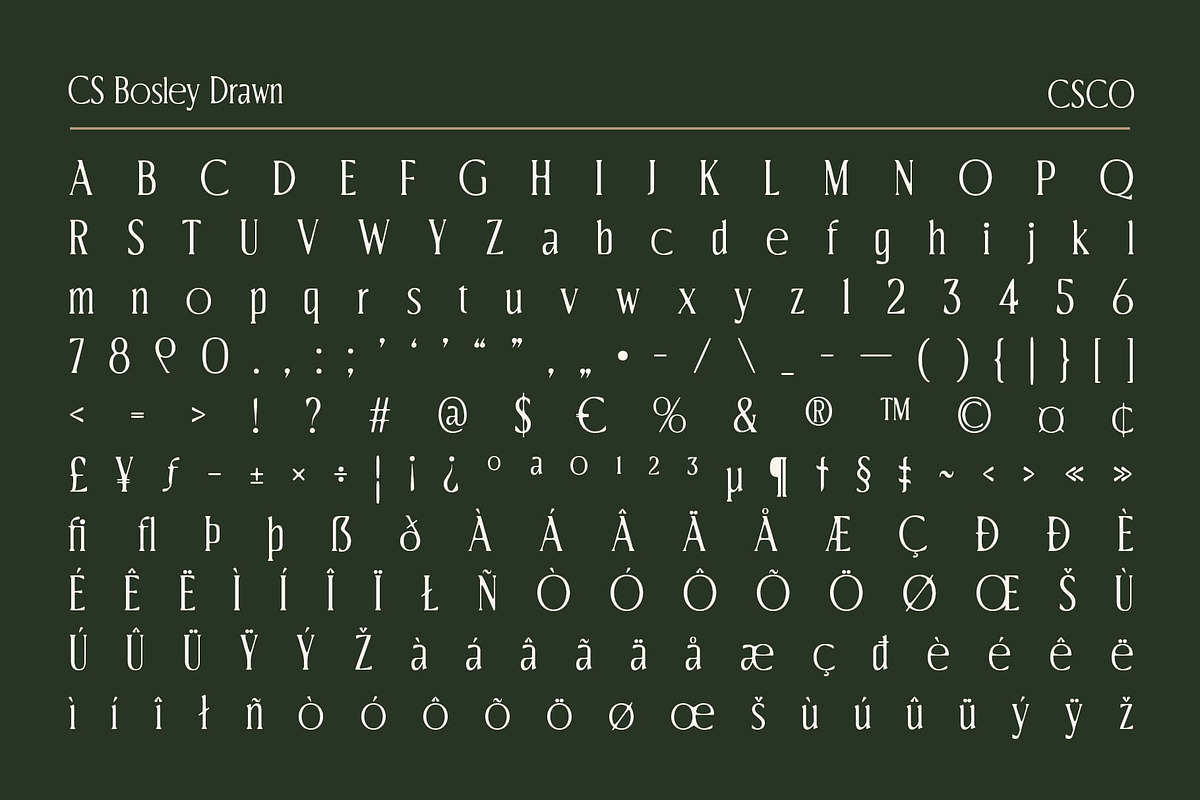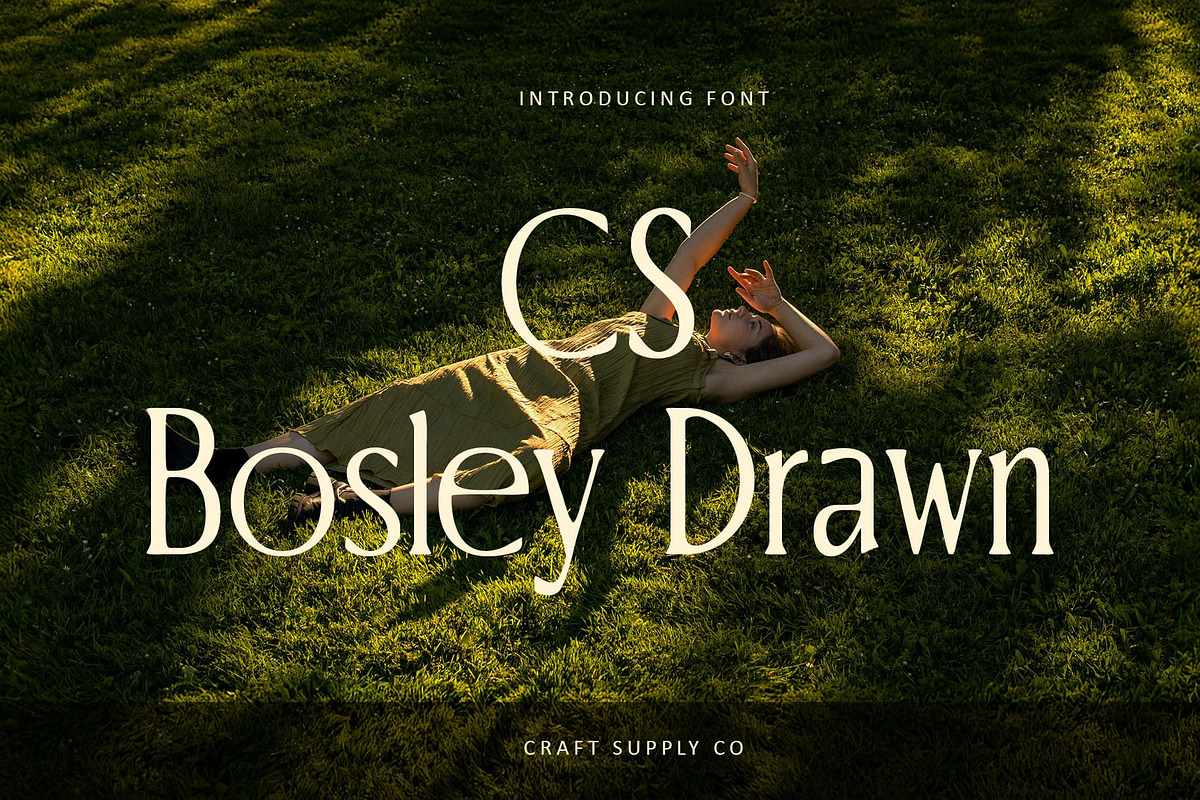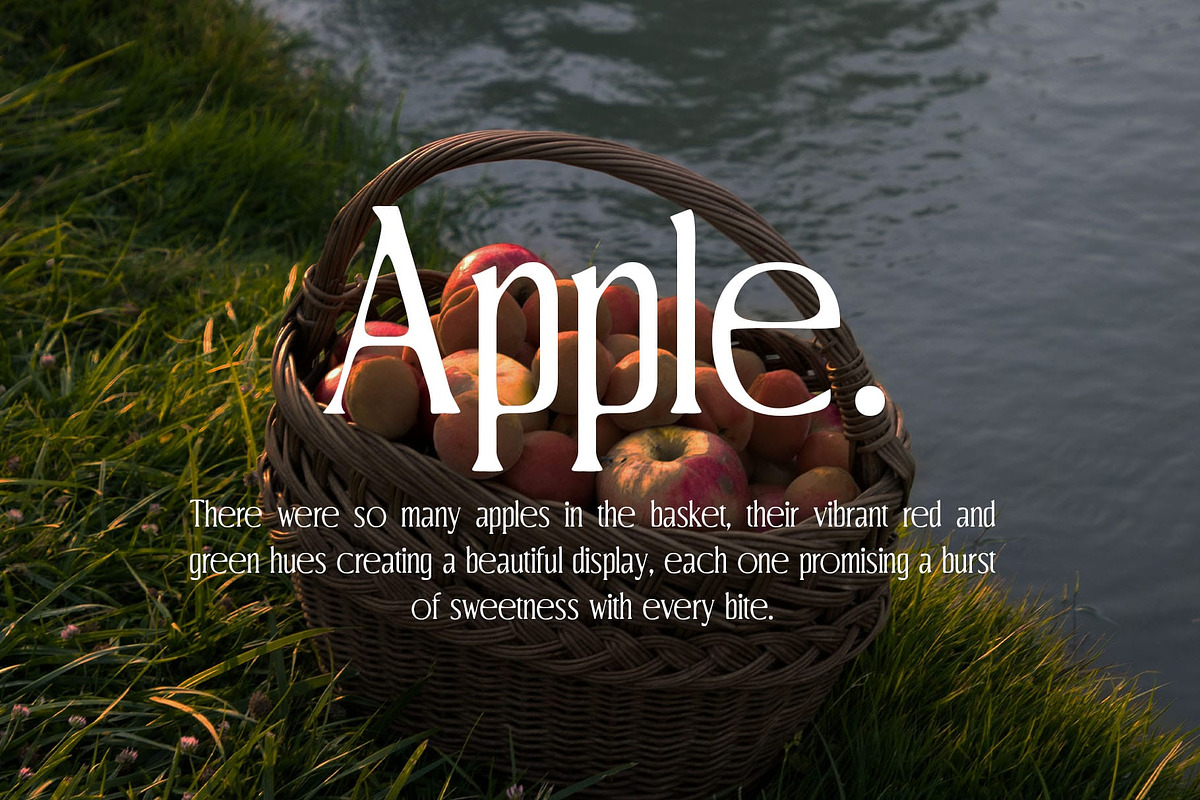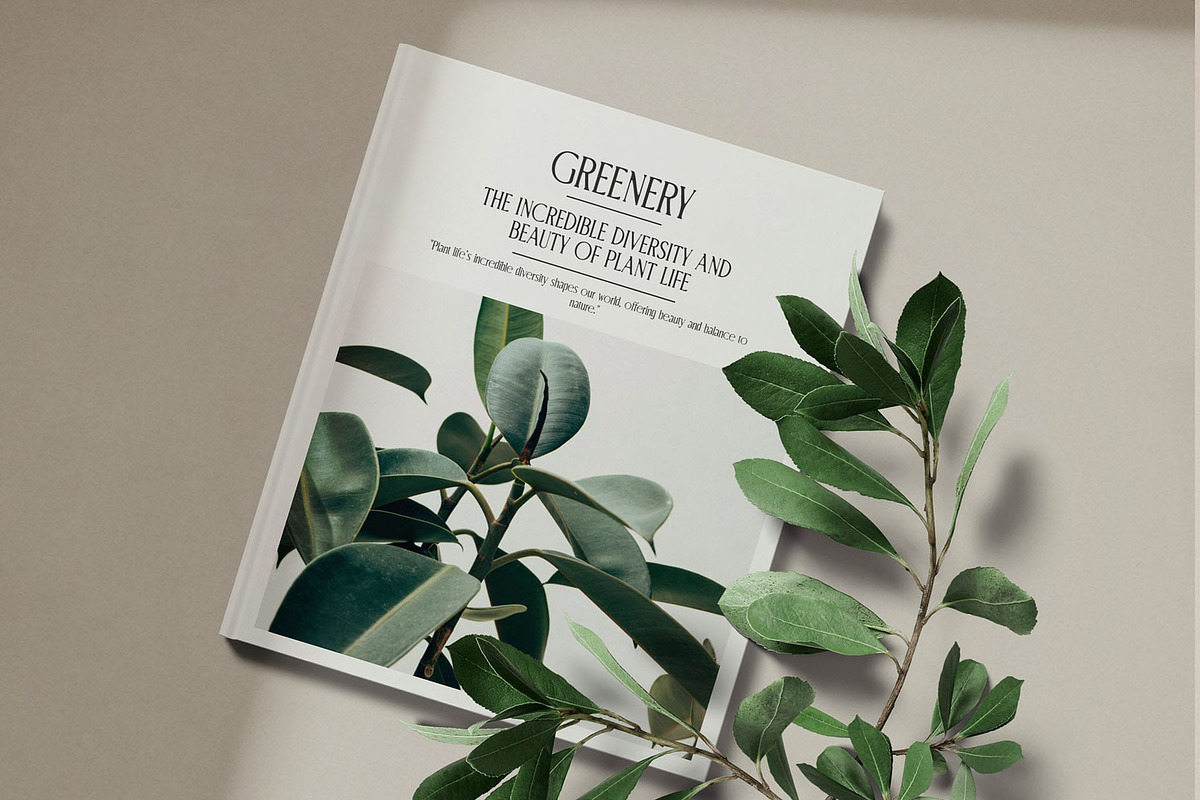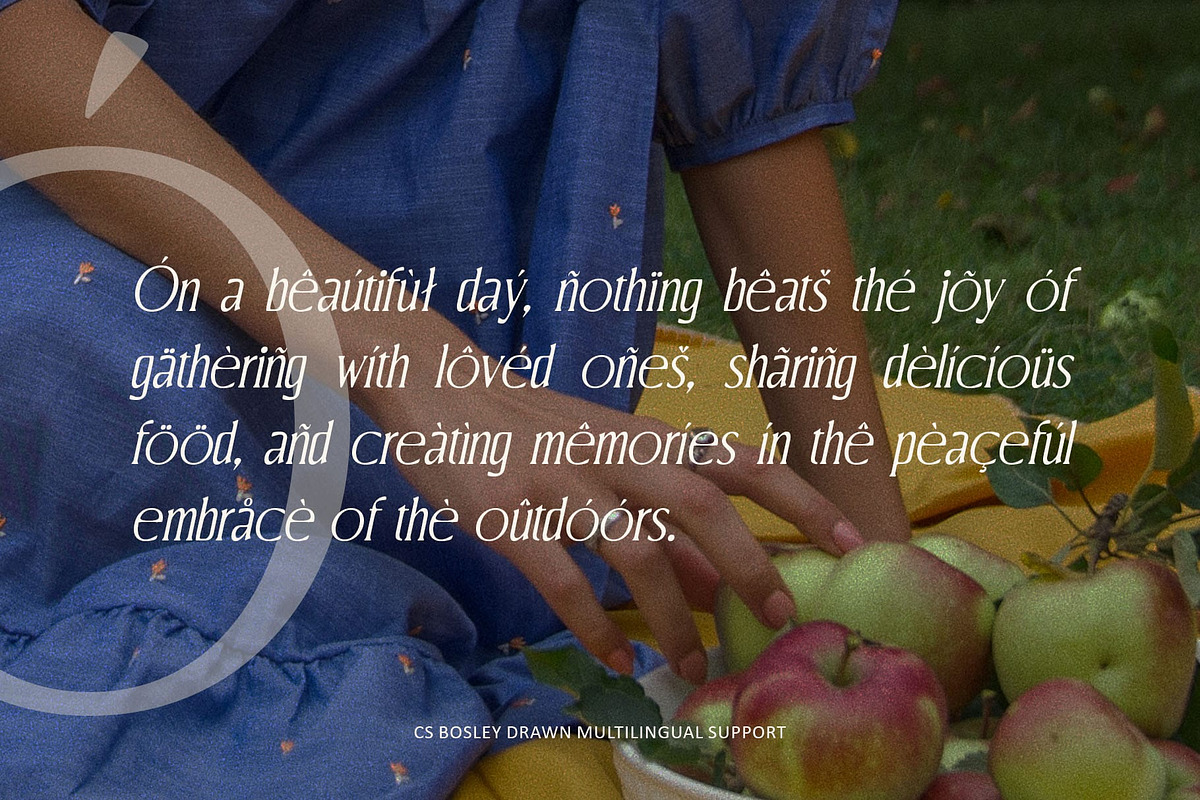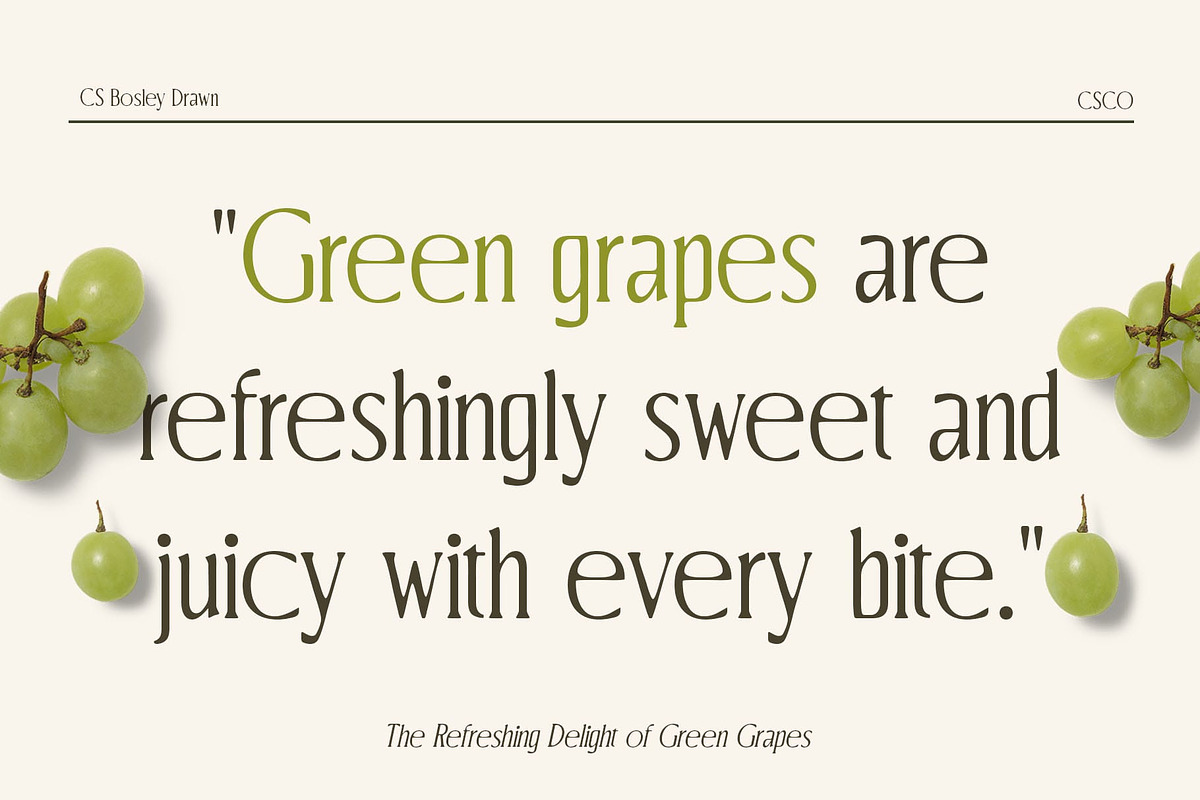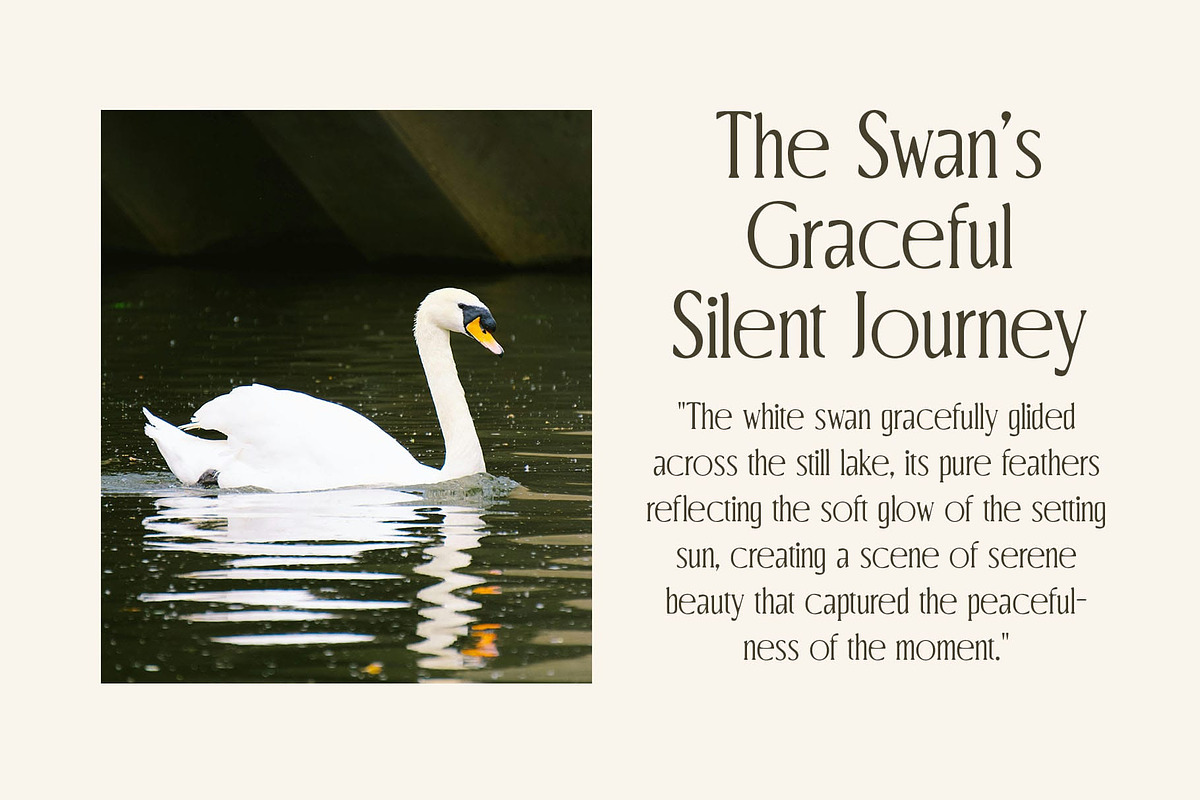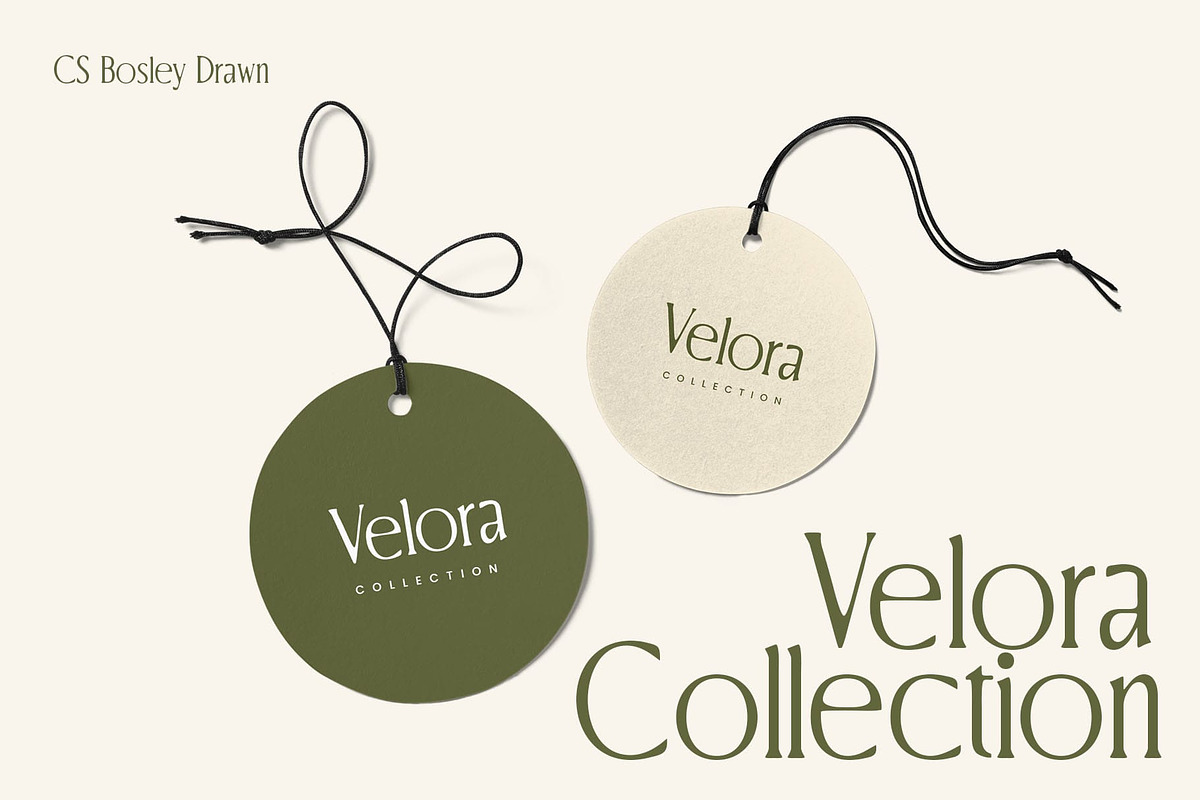
CS Bosley Drawn
CS Bosley Drawn – Modern Sans Serif with a Handcrafted Edge
Inktrap Details and a Distinctive Drawn Effect CS Bosley Drawn is a modern sans serif font that artfully combines precision with creativity. Featuring inktrap details and a drawn effect, it exudes a handcrafted charm while maintaining the clean, structured shapes of contemporary typography. This unique blend results in a font that is both professional and artistic, offering a versatile option for diverse design needs.
An Artistic Choice for Creative Branding Perfect for branding that seeks to stand out, this drawn font strikes a balance between modernity and artistic flair. Its refined inktrap details and drawn effect add a touch of uniqueness to logos, packaging, and promotional materials, making it an excellent choice for brands that value individuality and creativity.
Sophistication for Editorial Excellence This drawn font elevates editorial designs with its elegant and distinctive appearance. From magazine covers to feature spreads, its combination of sharp lines and handcrafted elements adds a sophisticated yet approachable feel, ideal for conveying professionalism with a creative twist.
Versatile for Artistic and Experimental Projects Whether you’re designing posters, creating experimental graphics, or crafting expressive visuals, this font adapts effortlessly to artistic projects. Its drawn effect and balanced proportions bring depth, personality, and a modern edge to any design, ensuring your work makes a memorable statement.